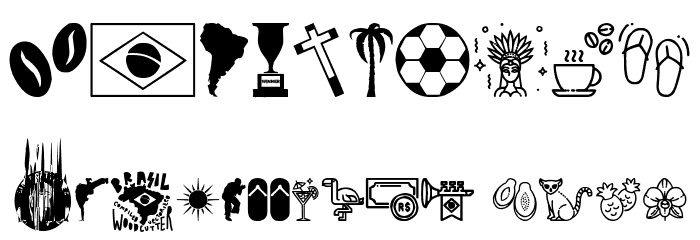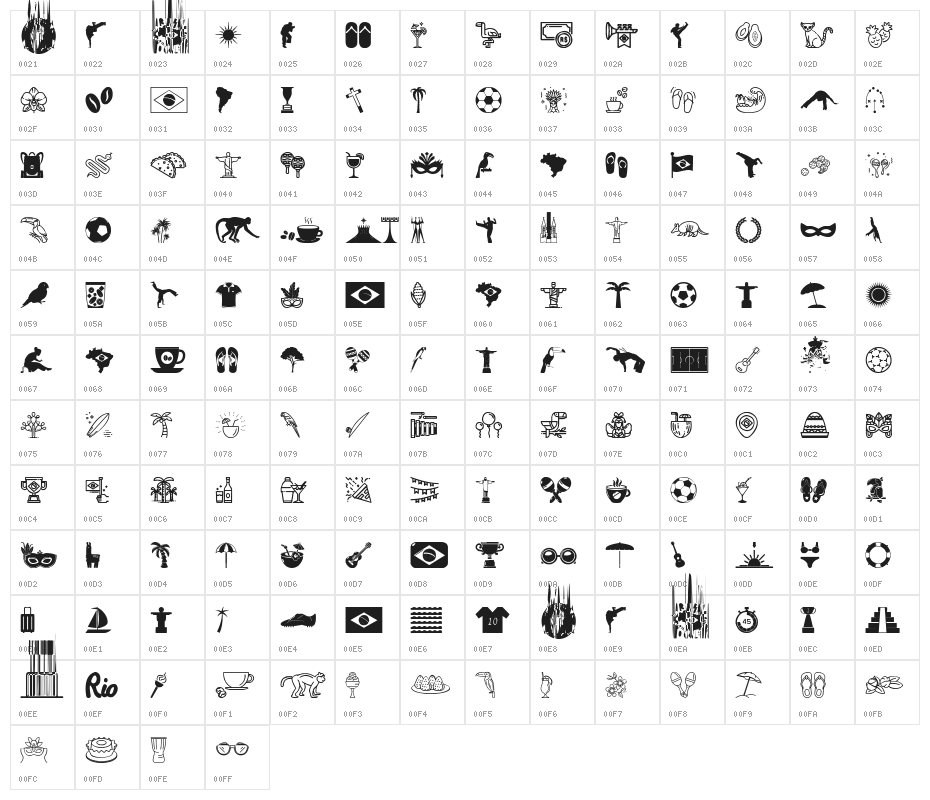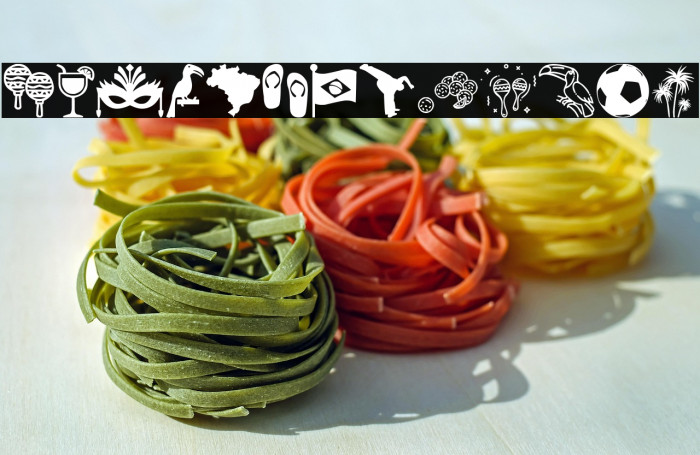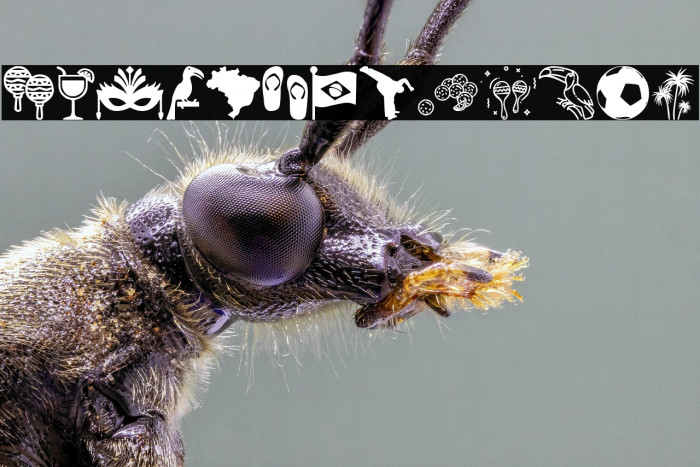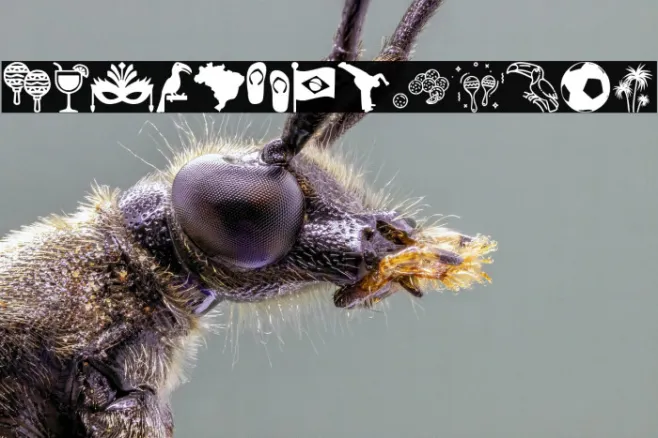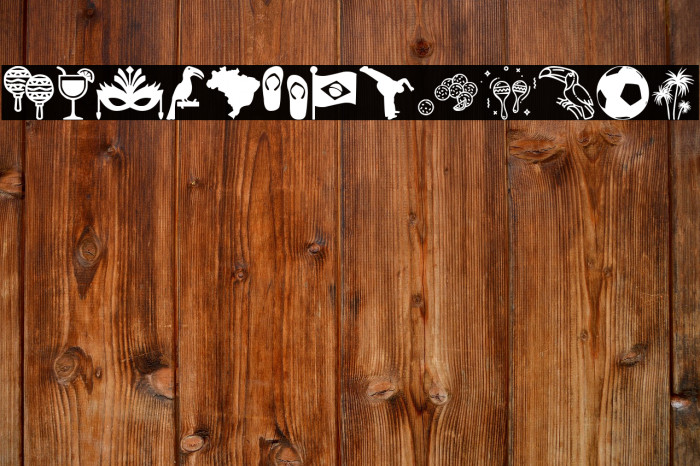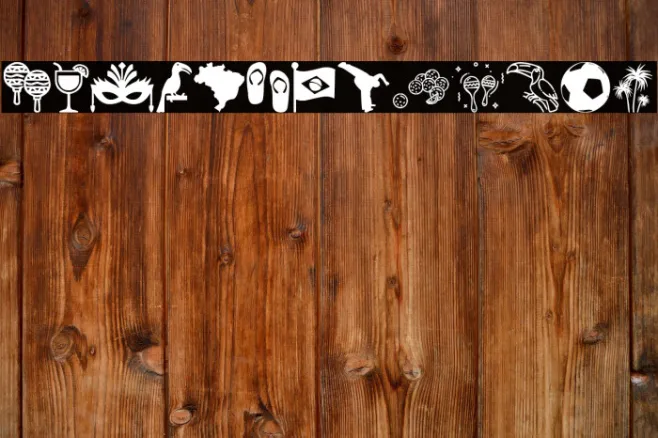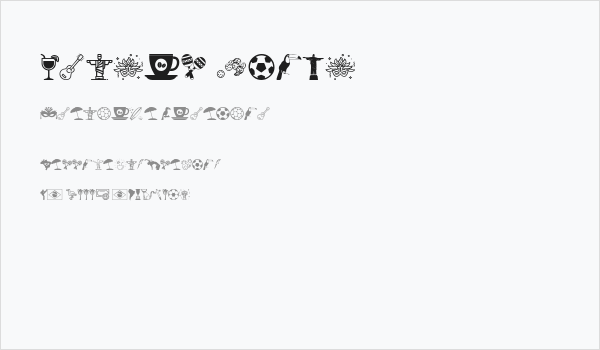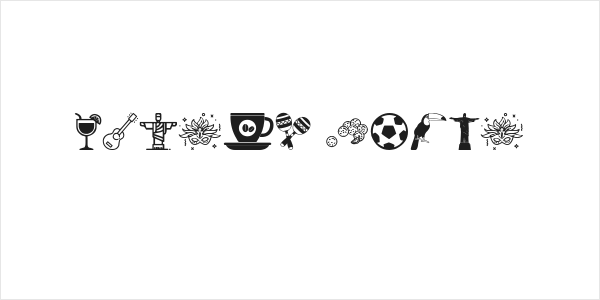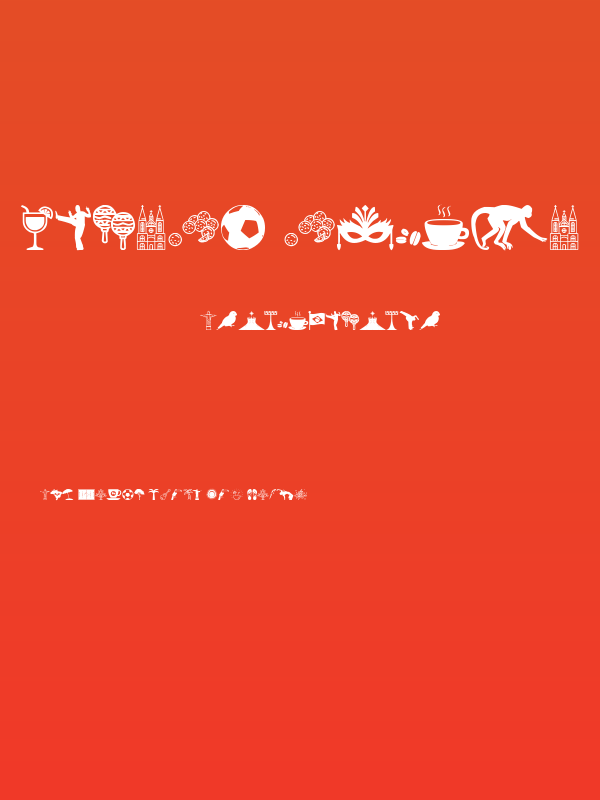
Brasil Icons Font
Brasil Icons Description
A decorative icon set featuring various symbols and cultural elements associated with Brazil, including coffee, soccer, carnival masks, tropical animals, musical instruments, and landmarks. The icons are bold, filled, and highly stylized, with clear outlines and minimal internal detail.
| Overall Style | Decorative, Thematic, Playful |
| Use Case | Icons, Logos, Decorative elements, Themed graphics |
| Proposed Projects | Tourism brochures, travel websites, event posters, educational materials, branding for Brazilian-themed products. |